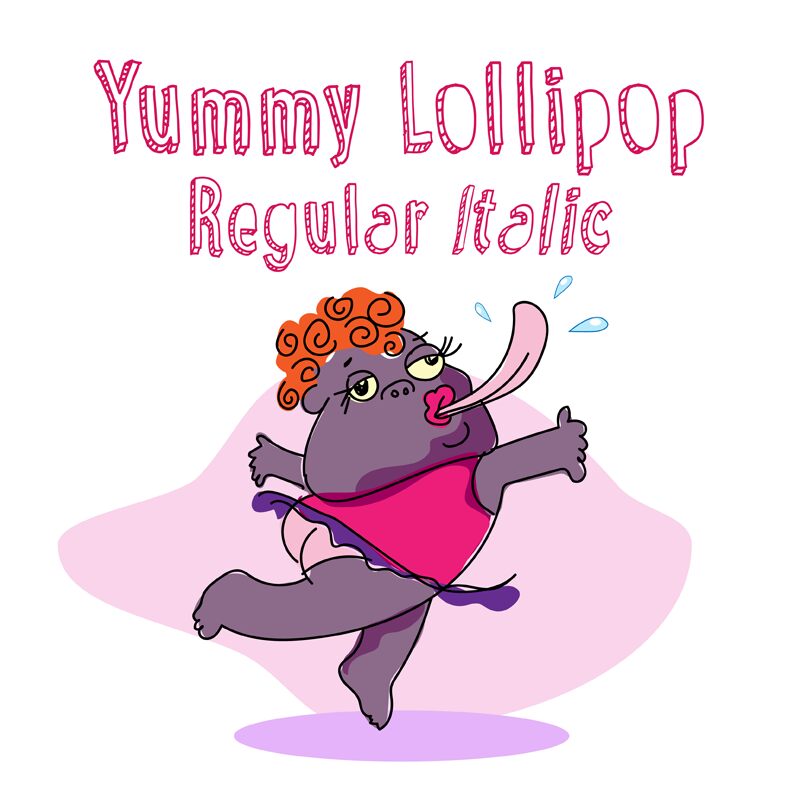
Yummy Lollipop Italic
Yummy Lollipop Italic font by Galdino Otten Fonts is a free italic cartoon display font. Built around candy‑cane diagonal striping and a sketchy, hand‑drawn outline, it leans with a playful slant and a gentle bounce that feels sugary and alive. Part of the Yummy Lollipop family, its soft corners and roomy counters keep the texture readable while still looking delightfully snackable.
Using Yummy Lollipop Italic, headlines pop on kids’ packaging, candy shop logos, birthday invitations, classroom posters, bakery menus, and YouTube thumbnails. The lively rhythm and inky, doodled edges add flavor at large sizes without getting messy. This free font shines on colorful backgrounds; pair it with a simple rounded sans for body copy, and give it extra tracking to let the stripes breathe.